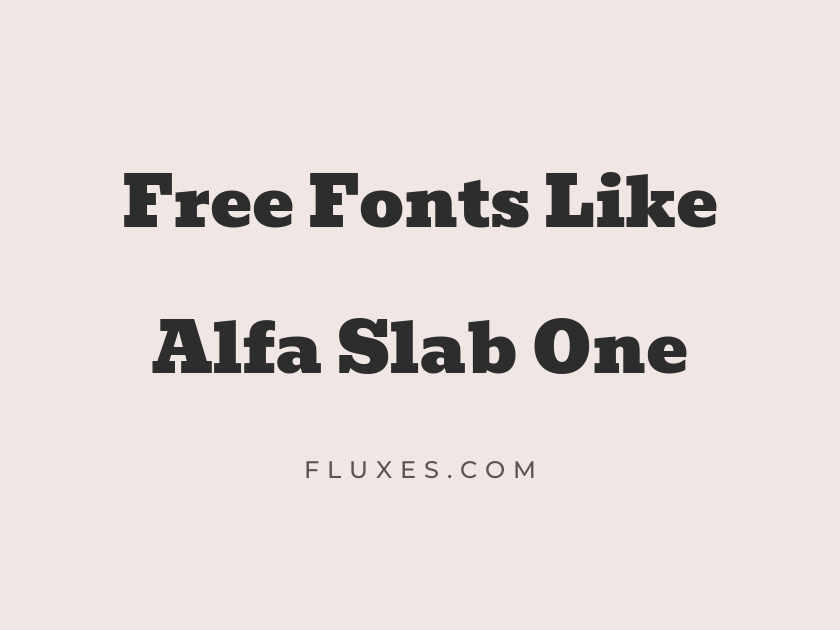
13 Best Free Fonts Similar to Alfa Slab One
Alfa Slab One built its reputation on sheer weight: thick, block-like serifs with almost no stroke contrast, the kind of letterform that shouts from a poster or a badge before anyone reads a word. It is a fantastic display face, but it comes in a single weight and a very specific mood, so designers often go looking for free slab serif fonts that can stand in for it, echo its heft, or give a project more flexibility across sizes and weights. The options on Google Fonts cover that range, from near-identical chunky slabs to more versatile families that can carry both headlines and body copy.
1. Bevan
Bevan is probably the closest sibling Alfa Slab One has on Google Fonts. It shares that stubby, confident slab structure and reads just as loud at poster size, making it a natural pick for craft beer labels, retro badges, and western-tinged branding.
2. Ultra
Ultra pushes stroke weight to an extreme, with serifs so thick they nearly swallow the counters. It works best in short bursts of text, a word or two on a vintage poster or a bold masthead, since anything longer starts to feel visually heavy and hard to scan.
3. Bigshot One
Bigshot One leans theatrical, with a rounded, inflated slab structure that recalls old circus and carnival signage. It is a fun choice when a project wants novelty and nostalgia over restraint, though its playful character means it will look out of place in anything formal.
4. Rammetto One
Rounded terminals and soft slab serifs give Rammetto One a friendlier, candy-shop energy than Alfa Slab One’s harder edges. It pairs well with a clean sans-serif body font for packaging or app icons that want boldness without looking aggressive.
5. Arvo
Arvo at bold weight keeps the geometric slab feel but with far more restraint and legibility at smaller sizes than the display faces above. It has been a go-to workhorse for years precisely because it transitions from headline to subheading without losing character.
6. Roboto Slab
Roboto Slab in its black weight delivers real heft while staying part of a full variable family, so a single download covers everything from delicate captions to shouting headlines. That range makes it one of the more practical Alfa Slab One alternatives for a responsive website rather than a one-off poster.
7. Zilla Slab
Zilla Slab was designed with long-form reading in mind, so its bold weight brings slab-serif presence without abandoning the comfortable proportions needed in paragraphs. Use it where a site wants a warm, bookish authority rather than pure billboard punch.
8. Bitter
Bitter has quietly become a favorite for online magazines and blogs, and its bold cut carries enough weight to anchor a headline above a lighter body text set in the same family. It feels more editorial than decorative, a useful contrast to Alfa Slab One’s carnival energy.
9. Rokkitt
Rokkitt’s bold weight has a slightly geometric, typewriter-adjacent feel that reads as confident rather than loud. It suits print-style layouts, from event flyers to product labels, where a slab serif needs to feel considered rather than improvised.
10. Aleo
Aleo was drawn as a companion to Lato, and it shows in its rounded, approachable slab forms. It is a gentler option for brands that want the structure of a slab serif without any of Alfa Slab One’s brashness.
11. Yeseva One
Yeseva One is not a strict slab, but its thick, high-contrast curves give it a similar poster presence with more elegance and a hint of vintage script influence. It works nicely on wedding-adjacent or boutique branding that wants boldness without looking industrial.
12. Graduate
Graduate has a stenciled, collegiate quality, with slab serifs and a slightly condensed structure that suits crests, varsity jackets, and letterman-style logos. It is a narrower, more disciplined alternative when Alfa Slab One’s roundness feels too soft for the brief.
13. Elsie
Elsie’s black weight brings a decorative, almost hand-carved quality with subtle flourishes at the terminals. It suits short, punchy headlines on packaging or posters where a slab serif needs personality rather than pure utility.
Most of these slabs are display fonts first, so keep them for headlines, logos, or short bursts of text.
Test any bold slab at your actual target size before finalizing; some get muddy or lose their charm once shrunk down for mobile screens.
Alfa Slab One earned its place in poster and badge design by being loud and unapologetic, but the alternatives above show that boldness comes in more than one flavor. Whether the goal is an exact stand-in, a friendlier cousin, or a more flexible slab serif for a full website, there is a free download here to fit the brief.